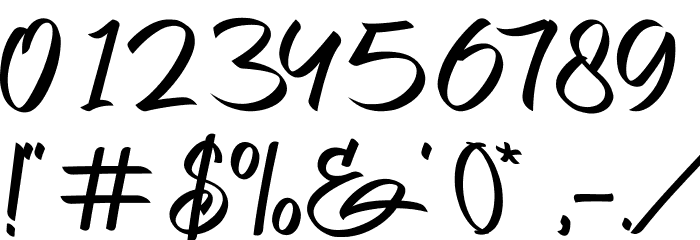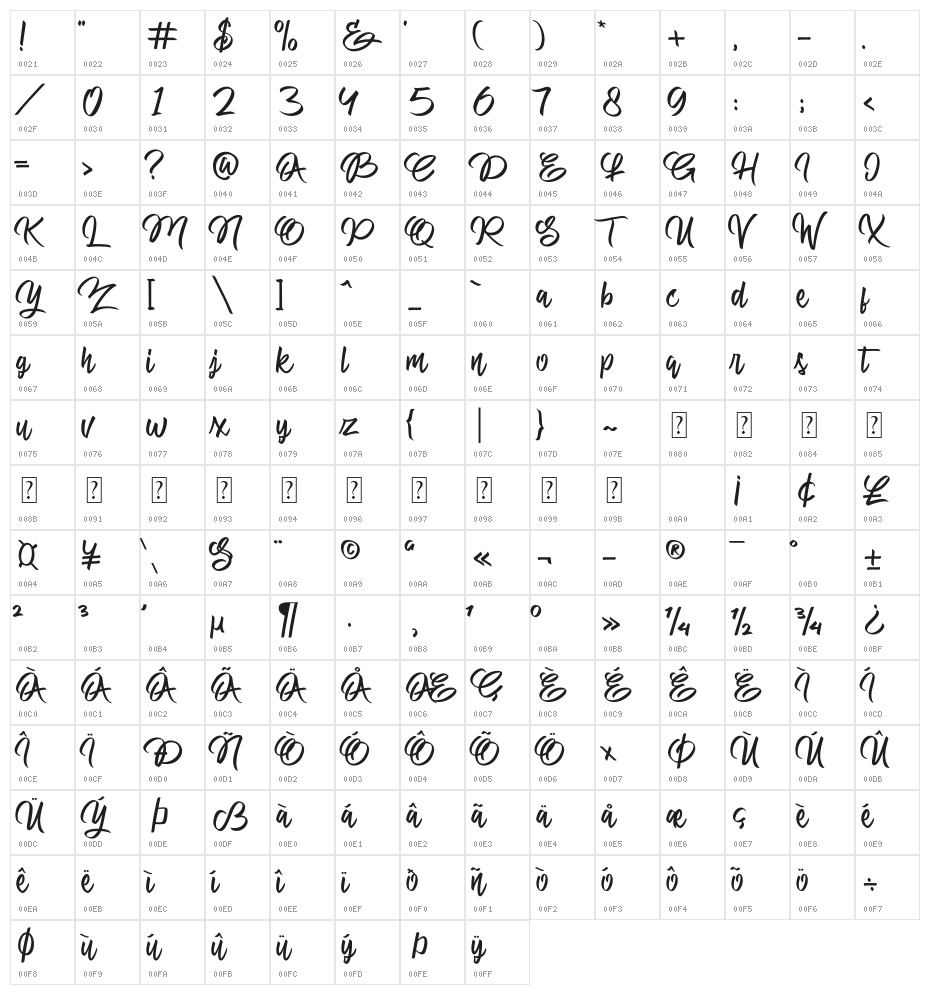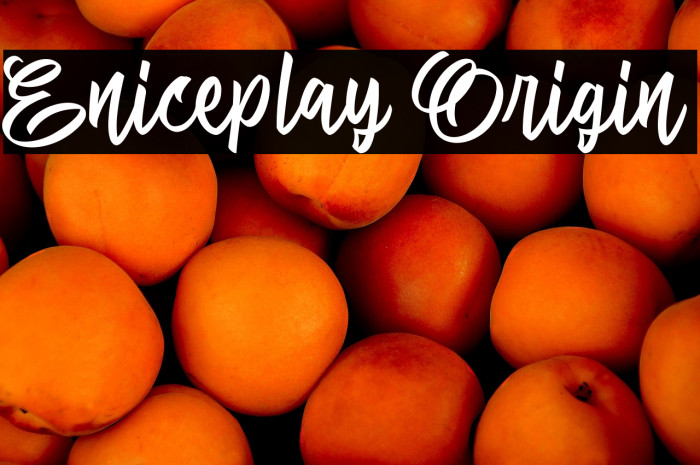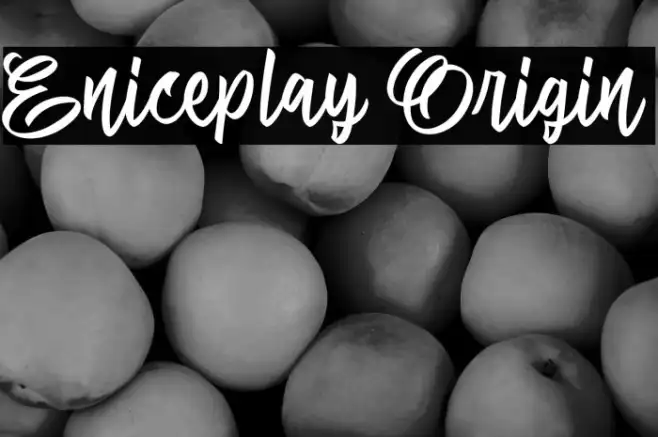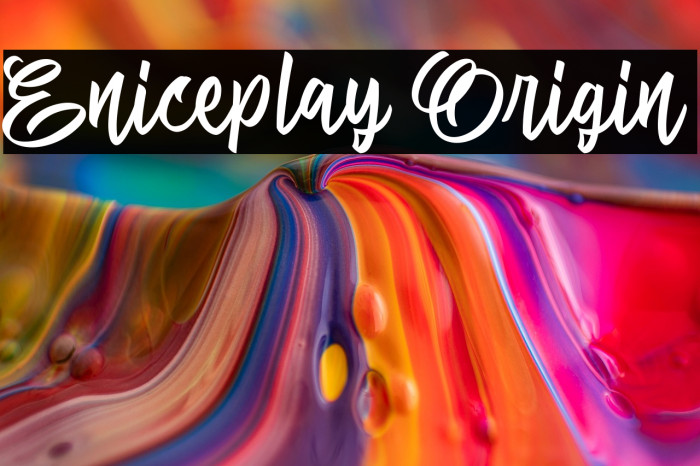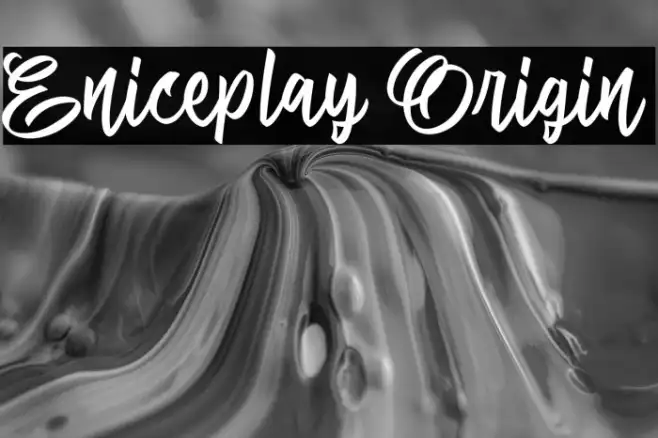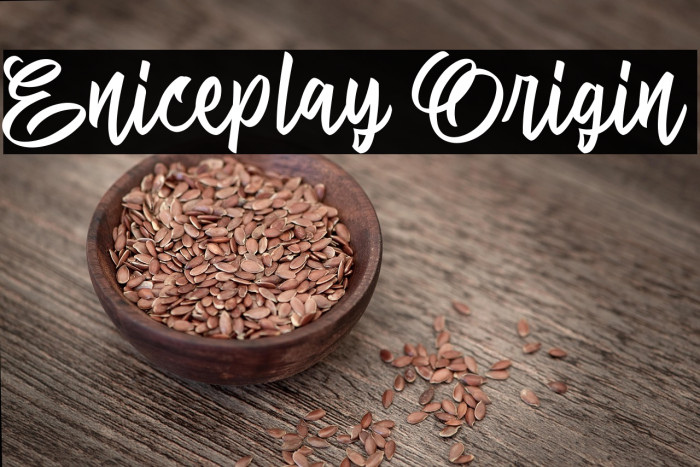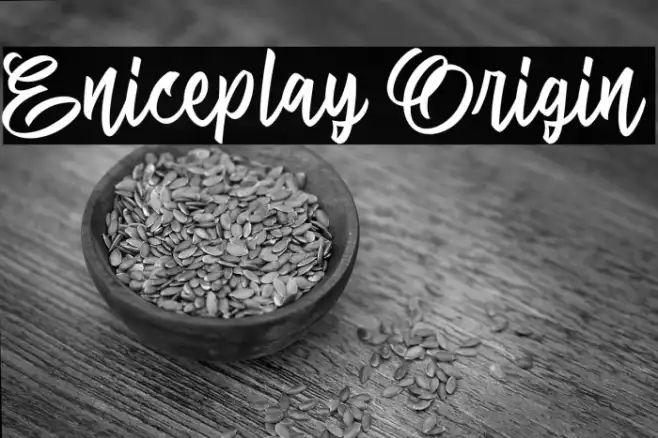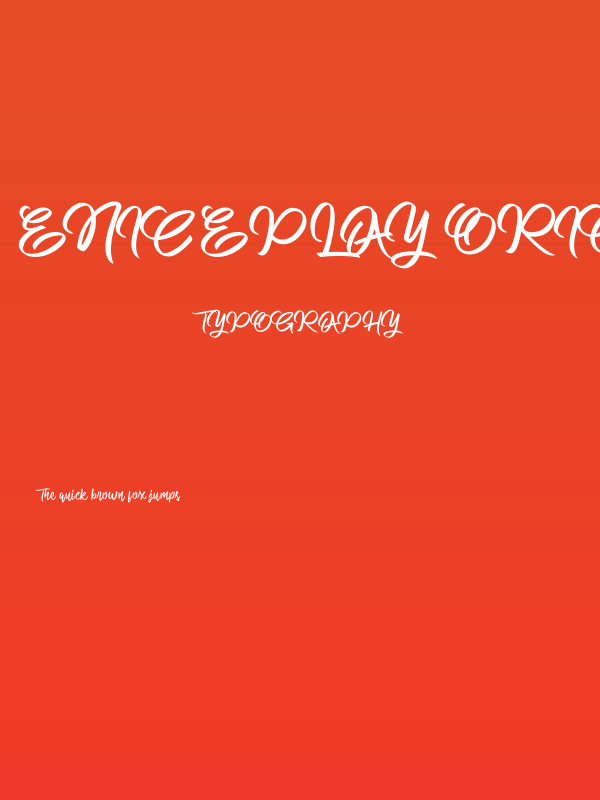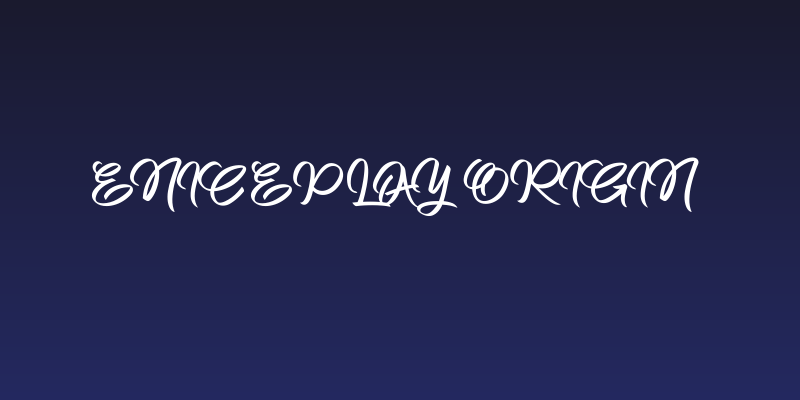
Eniceplay Origin Font
Eniceplay Origin Description
This font features a dynamic and expressive script style with a handwritten appearance. The letters are fluid and connected, giving a sense of movement and elegance. The uppercase characters are bold and slightly slanted, while the lowercase letters maintain a consistent flow with a playful touch. The numbers are robust and maintain the same stylistic flair as the letters. Special characters are integrated seamlessly, adding to the font's versatility. Overall, this font exudes a modern yet personal feel, making it suitable for creative and informal projects.